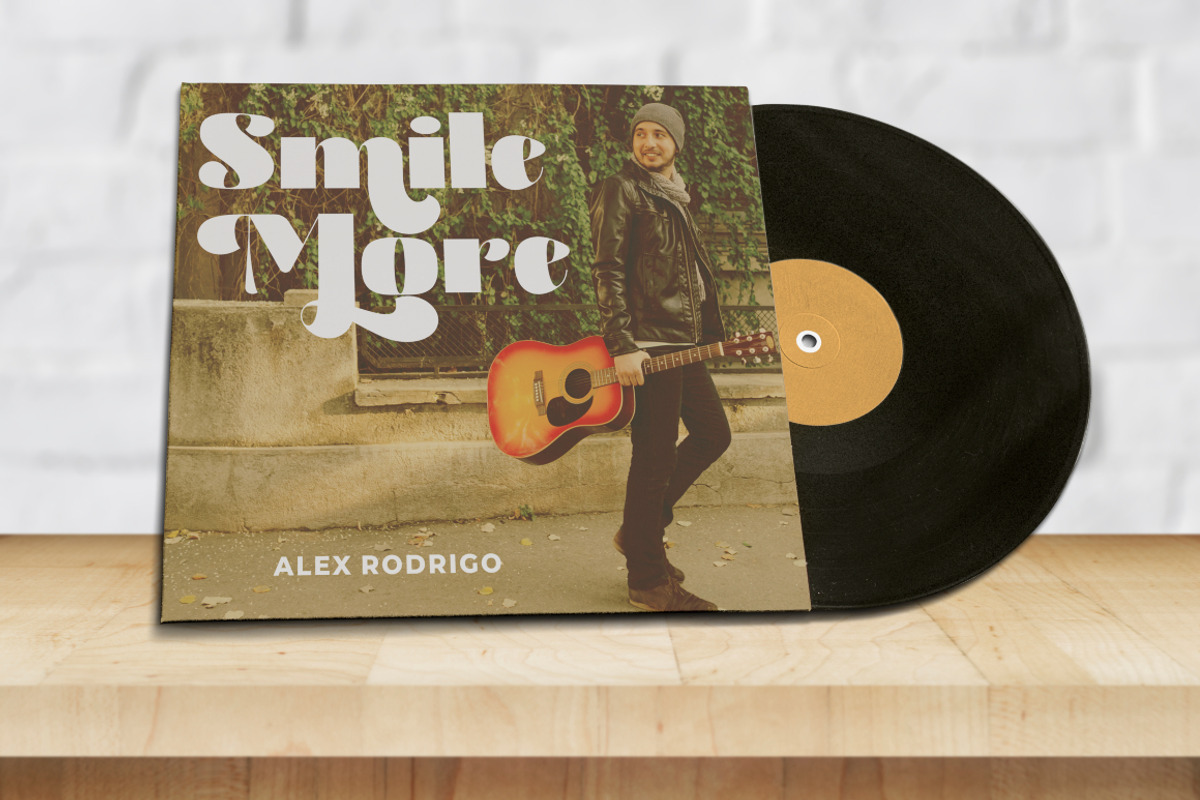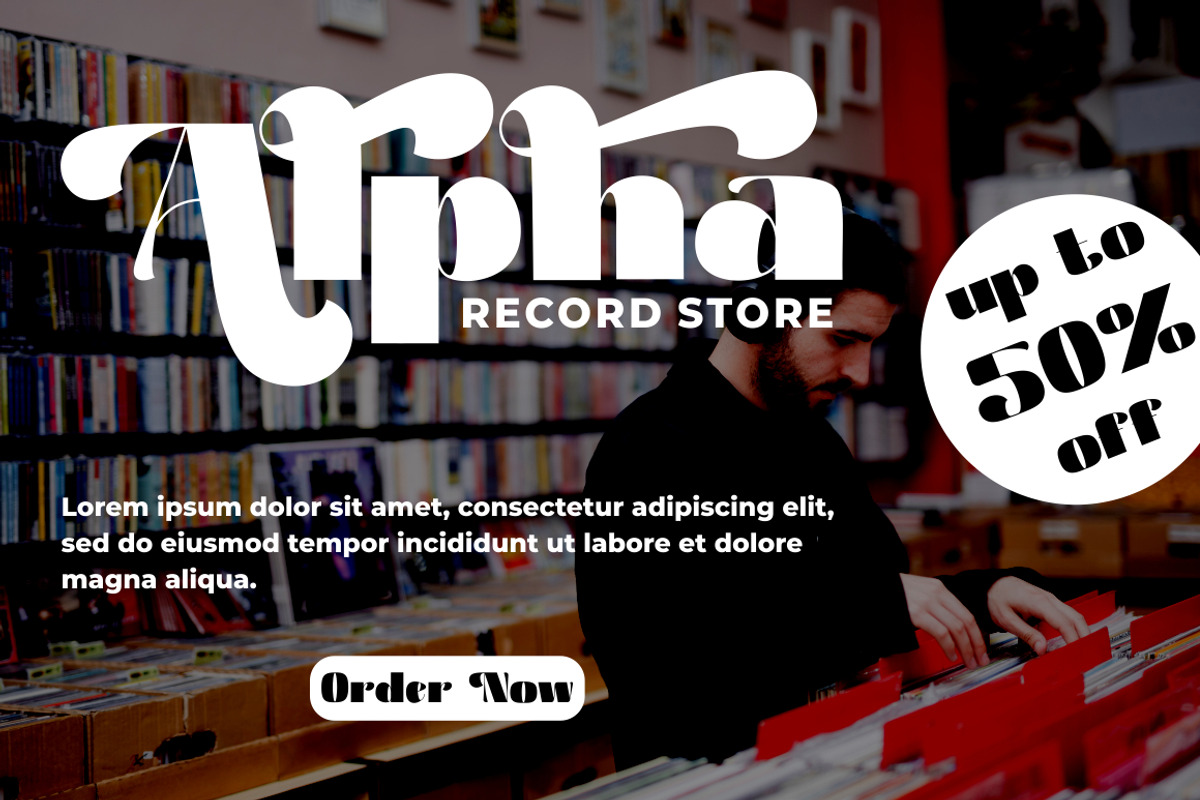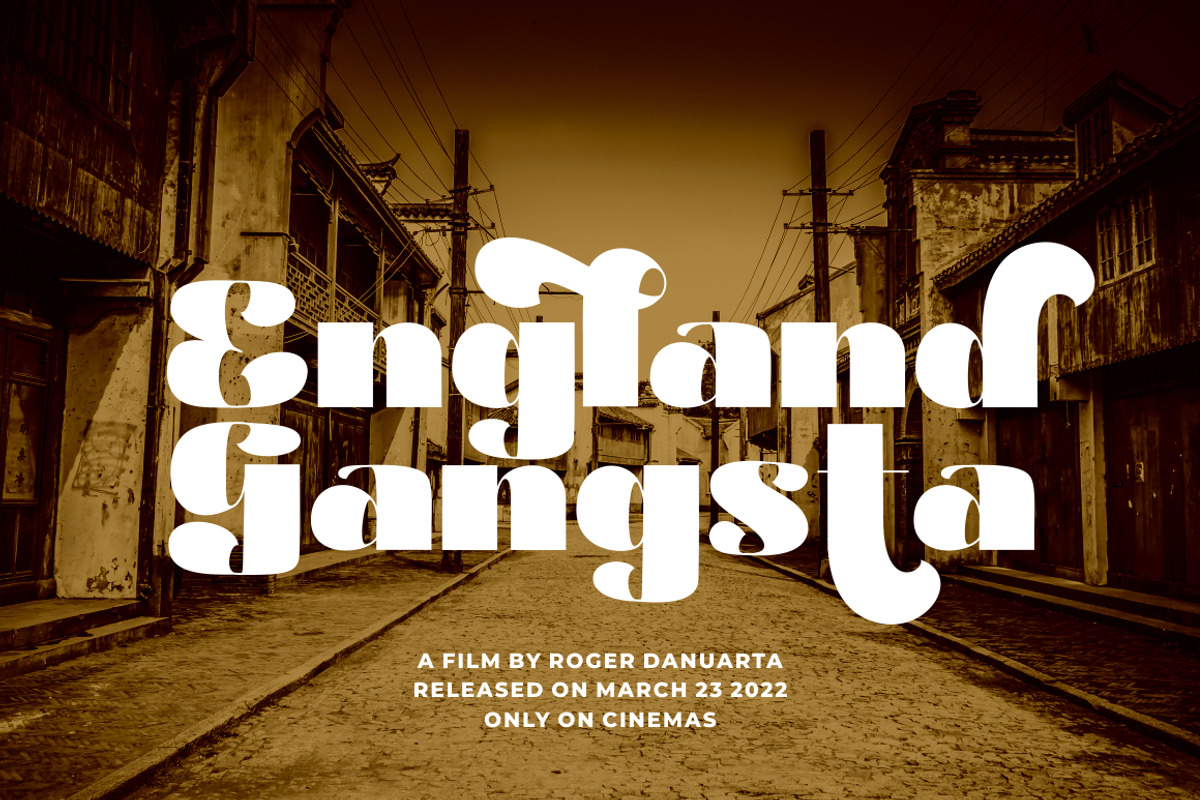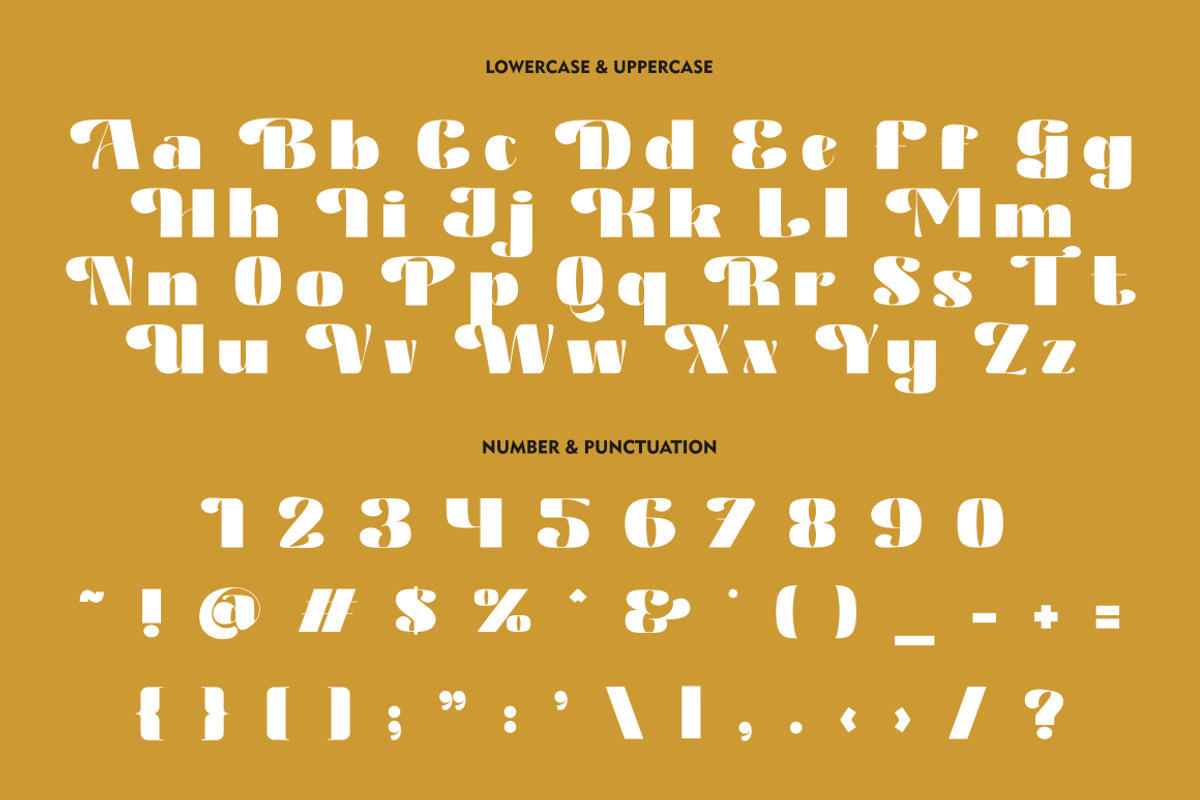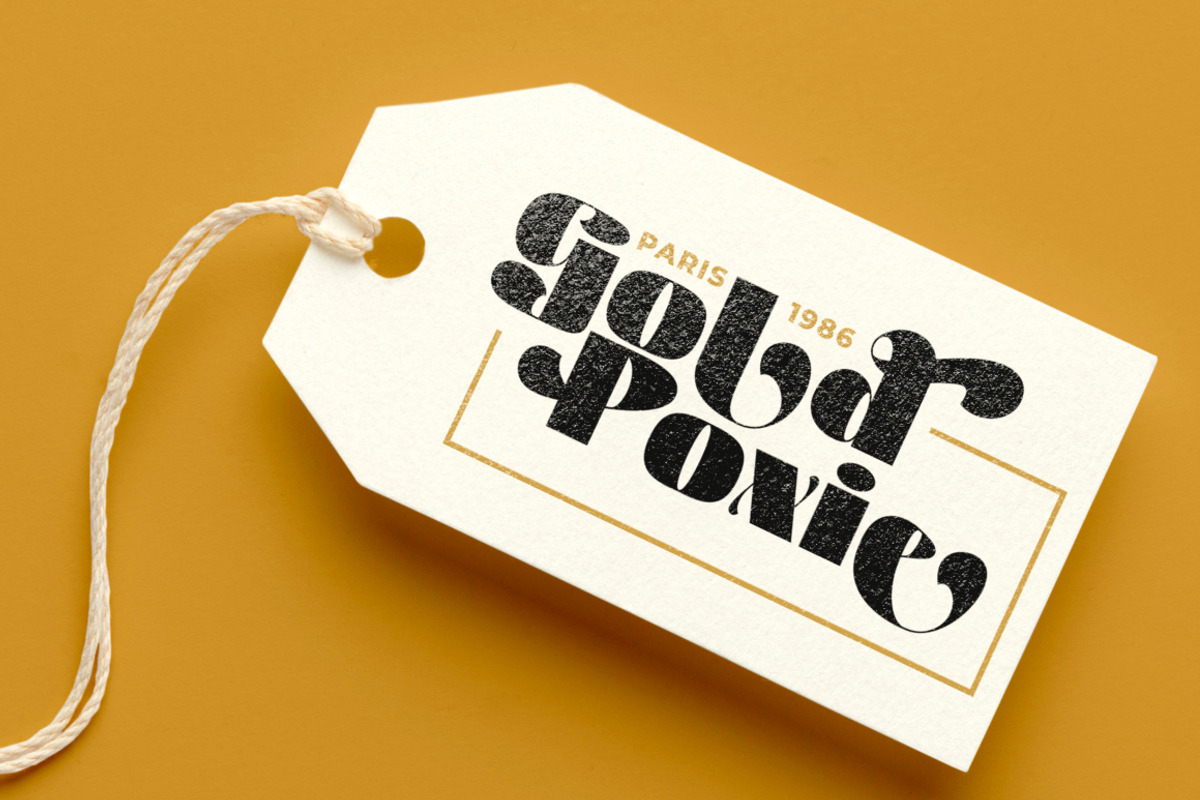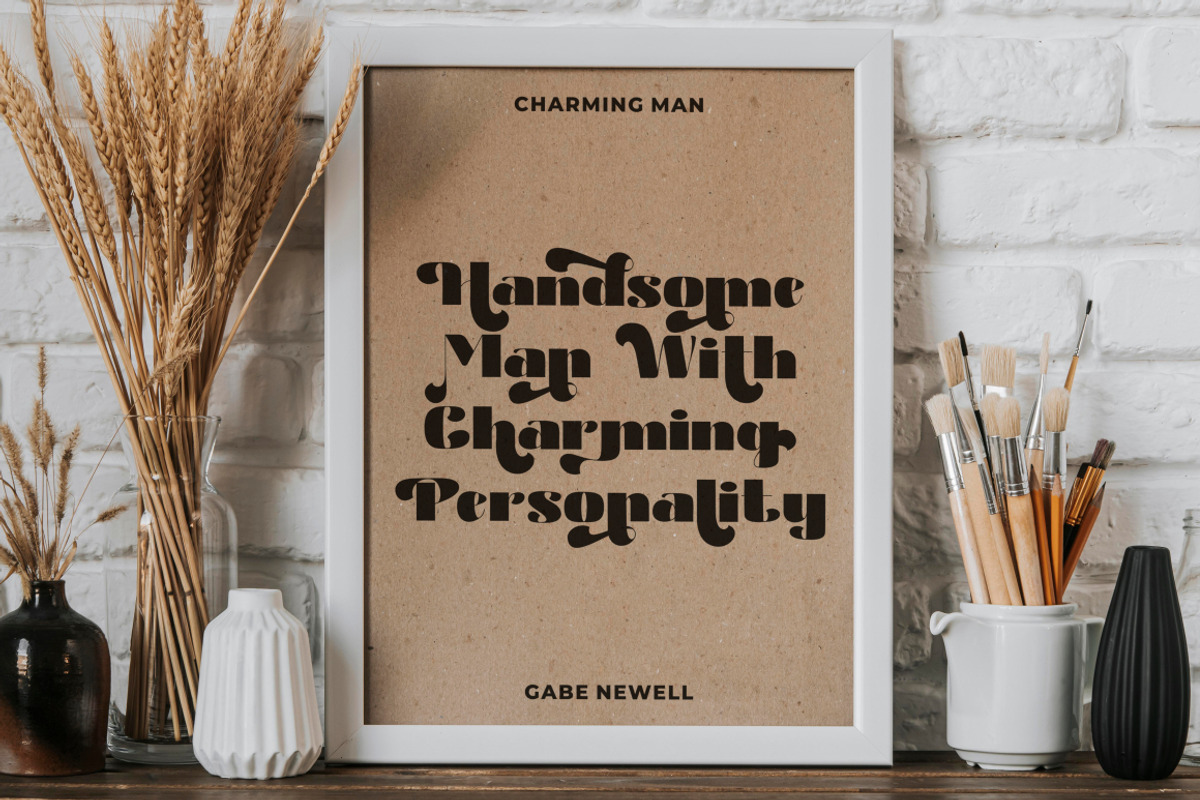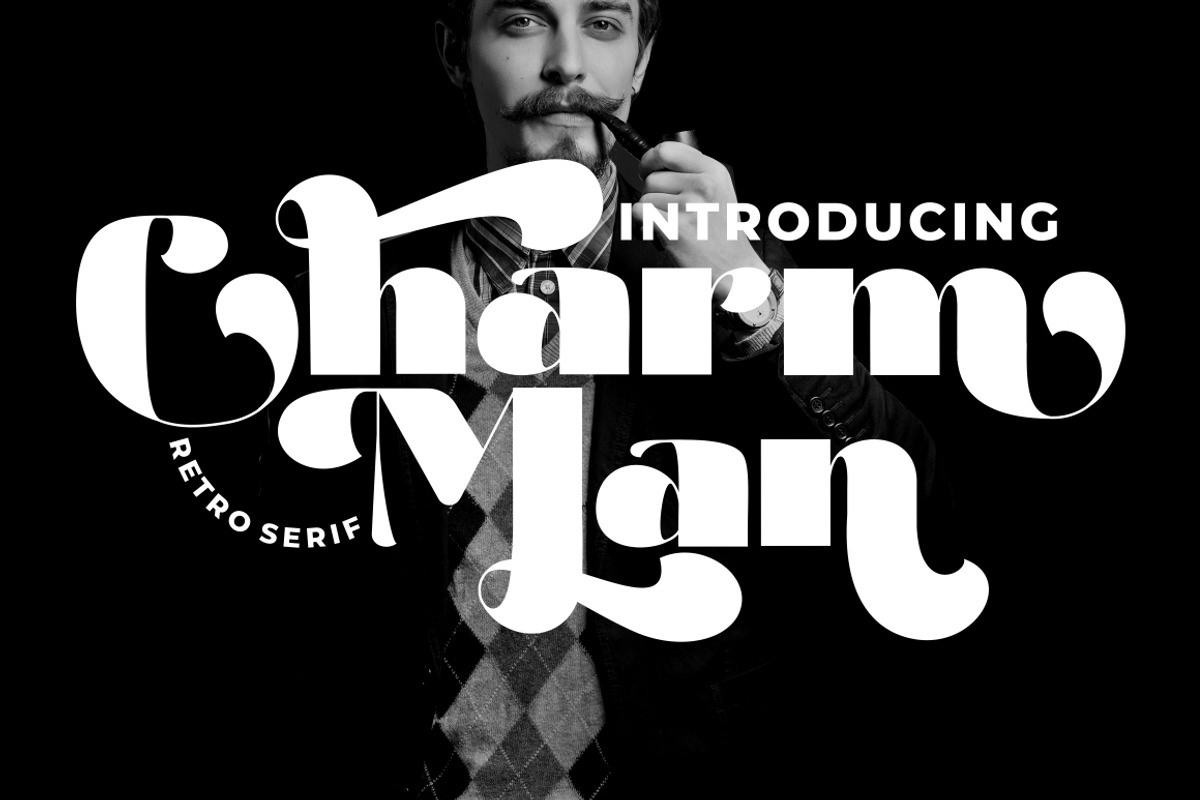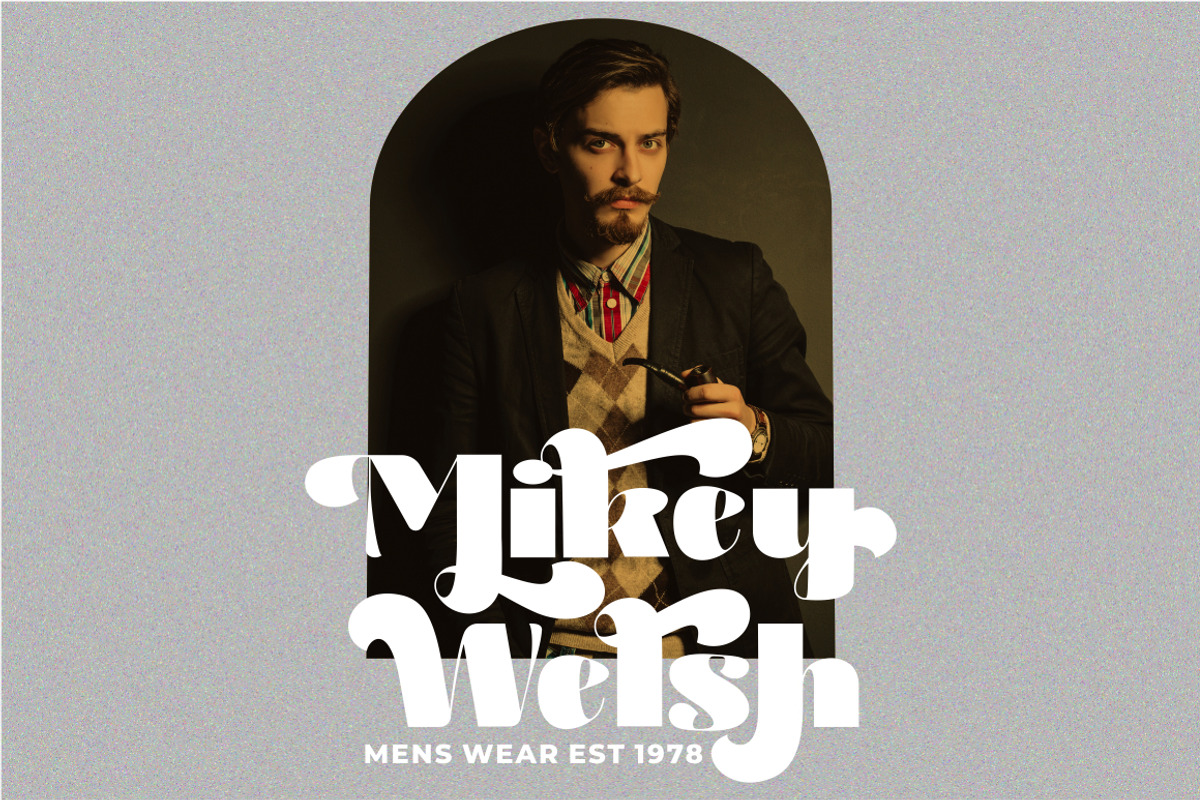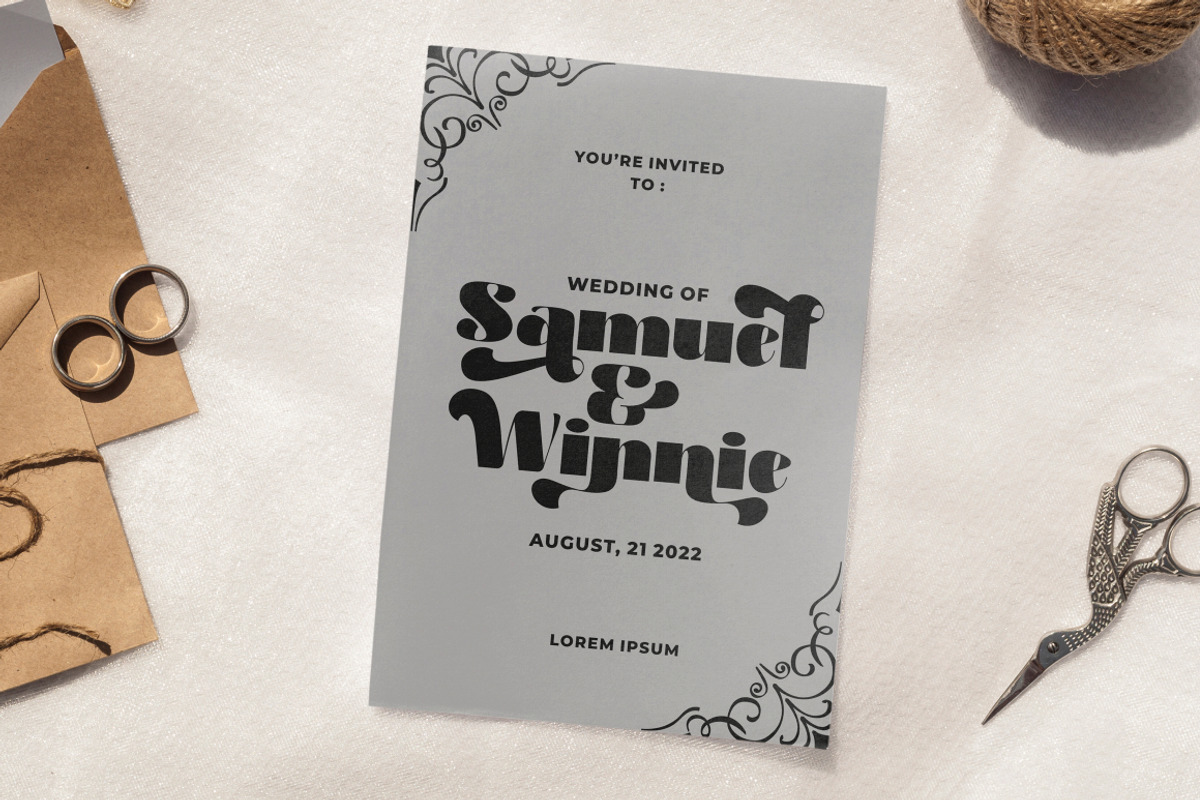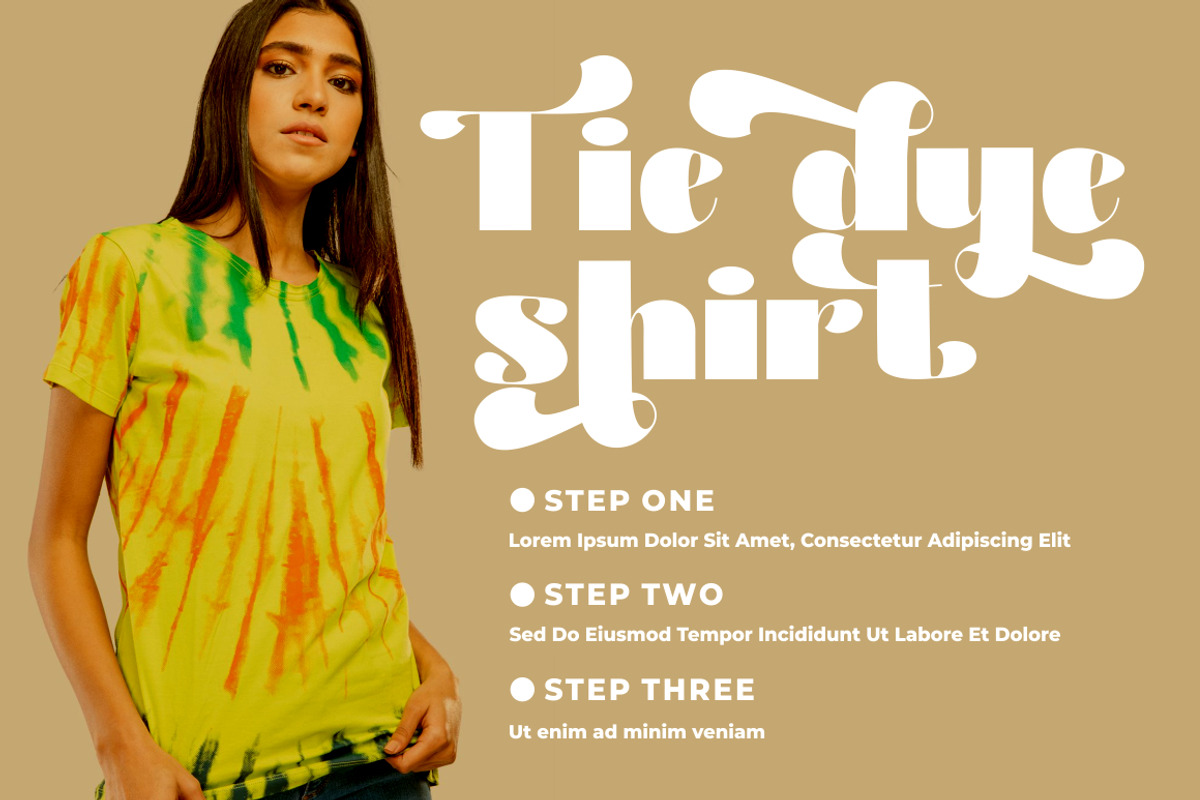
Charm Man - Ultra Bold Sans Font
Charm Man - Retro Serif Font
Charm Man - Retro Serif Font. Charm Man is a bold retro style serif font with strong character and soft features. Charm Man is a stylish font that is both bold and retro font.
Charm Man is equipped with Swash, Stylistic and Titling alternates as well as with Standard and Discretionary Ligatures. Charm Man's thick curves give a 70s groovy vibe with the serif bringing it slightly back to traditional. Comes with alternatives and ligatures, helps to create stunning logos, quotes, posts, blog posts. branding projects, magazine imagery, wedding invitations, and much more.
The alternative characters were divided into several Open Type features such as Swash, Stylistic Sets, Stylistic Alternates, Contextual Alternates, and Ligature. The Open Type features can be accessed by using Open Type savvy programs such as Adobe Illustrator, Adobe InDesign, Adobe Photoshop Corel Draw X version, And Microsoft Word. This font is also support multi language.